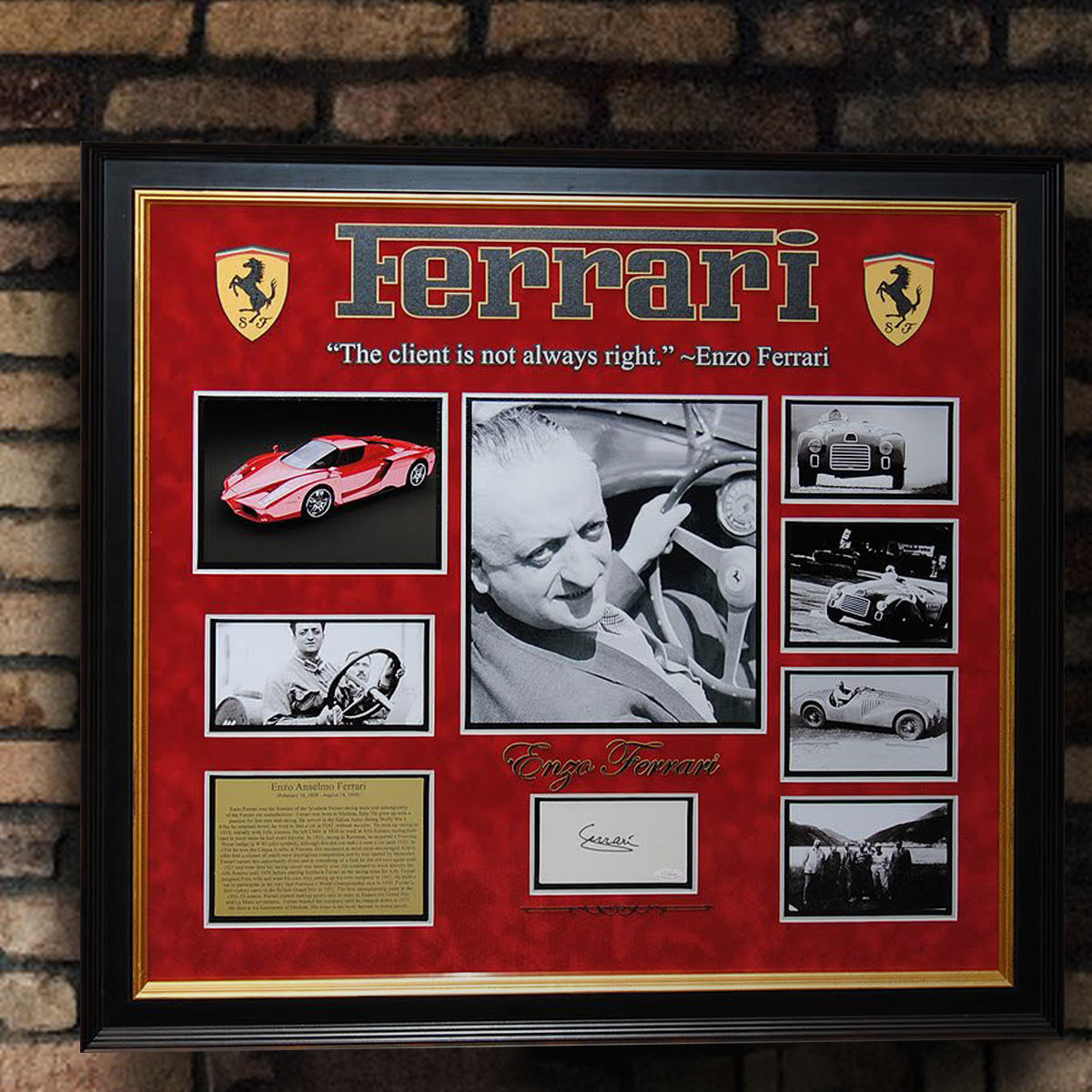
Enzo Ferrari Font
Enzo ferrari font. You can use the font in your personal and commercial projects. Simply download it from the link below. This brand was founded by Mr Enzo Ferrari on 13 September 1939.
“Ferro Rosso” is the font used in the Ferrari logo. About Ferrari Font Ferrari is an Italian sports car manufacturer founded by Enzo Ferrari in 1929. We have 1 free ferrari fonts to offer for direct downloading · 1001 Fonts is your favorite site for free fonts since 01.
The company has been famous for its success in racing, especially Formula One. They were always present on the company logo and never disappeared, and if they underwent any changes, it was only insignificant. Font and Color of the Emblem The main gamut of Ferrari is black (a rearing horse, the distinguishing mark of a Francesco Baracca aircraft) and gold (the palette of the hometown of Enzo, Modena).
Ferrari font here refers to the font used in the logo of the auto brand Ferrari, which is an Italian sports car manufacturer founded by Enzo Ferrari in 1929. This font is designed by FontMesa.